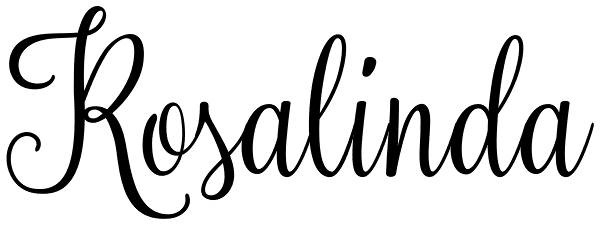
Rosalinda Script
Rosalinda is a new handwritten typeface designed with wedding invitations in mind but can be used for various purposes like t-shirt design, logos, quotes design etc. The font contains 900+ characters and is best used in an Opentype-aware application...